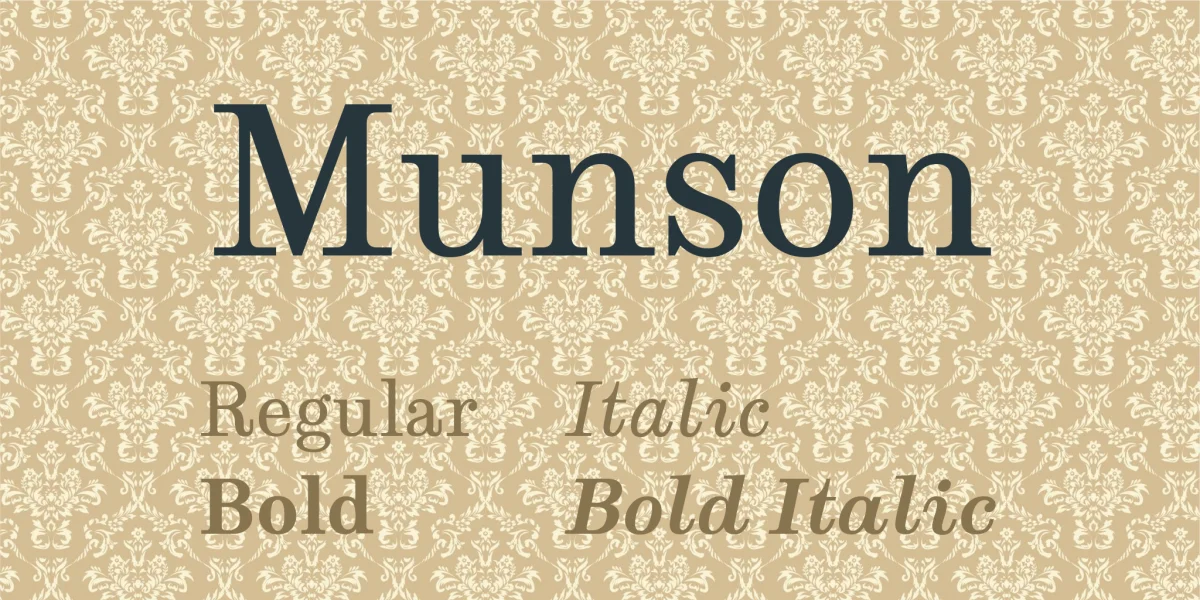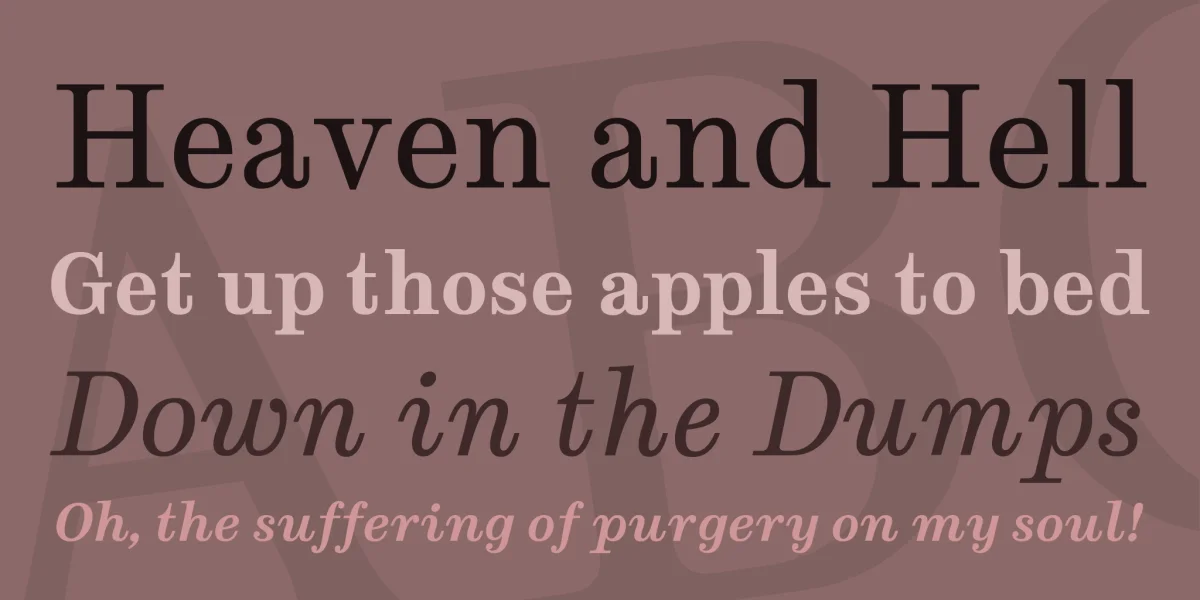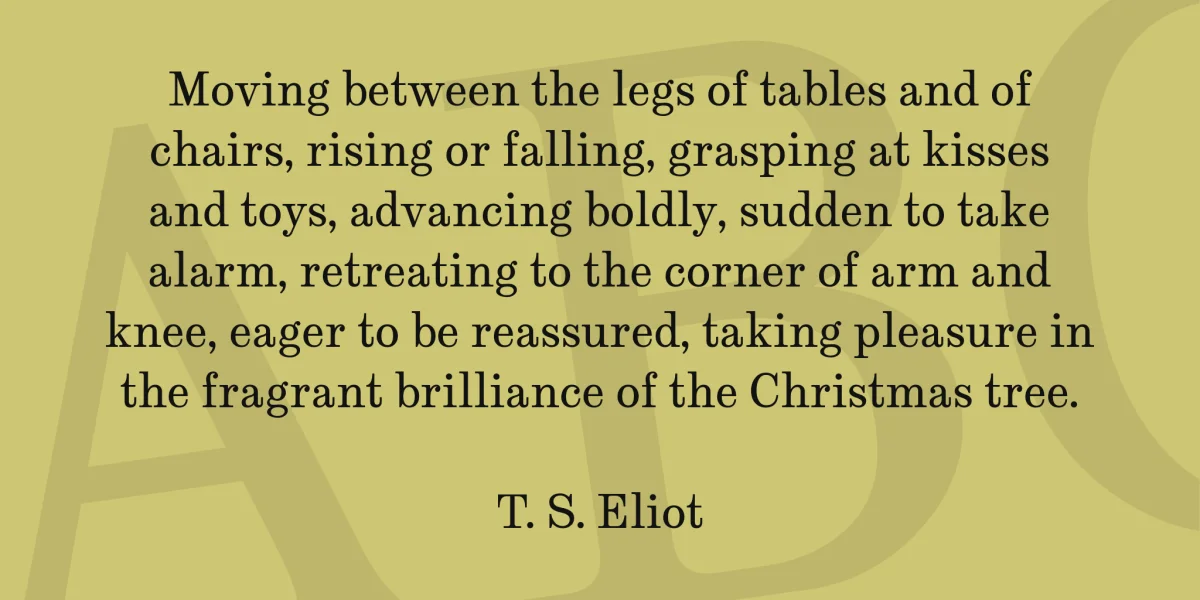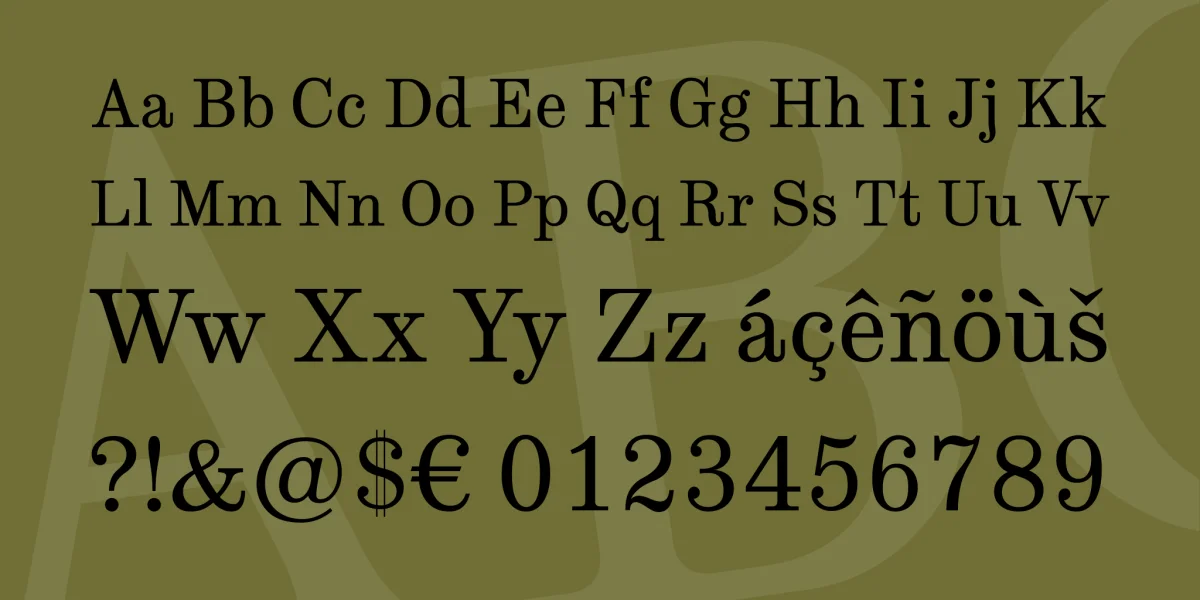
There was a typeface by a company called Stephenson Blake Co. in Sheffield. This typeface was made around 1815 and was called Consort. It was a bracketed slab serif face with ball terminals where appropriate. I have obtained scanned documents and typeface samples from that era which depict the Consort typeface and I have attempted to re-create the look and style of that typeface in a modern font.
I have photographs of an incomplete set of the Consort typeface, I have filled in the gaps and some of the characters in the Consort typeface were not to my liking so I have designed Munson according to my own aesthetic preferences and with a great deal of artistic license.
There is also much of Clarendon in Munson. The Clarendon typeface was first made by Robert Besley in London in 1845 and is particularly well known. Munson is an amalgamation of all these influences, a sort of hybrid between the Consort and Clarendon with some of my own influence thrown in for good measure.
Why ?
Because I needed a 'Clarendon' style typeface and couldn't find any free ones with good quality and a decent design of italic.
There are some passable free Clarendon imitations but most either don't have italics or think that italic means oblique.
Thats why!
There was copying but this was done by hand and eye rather than by copy and paste.